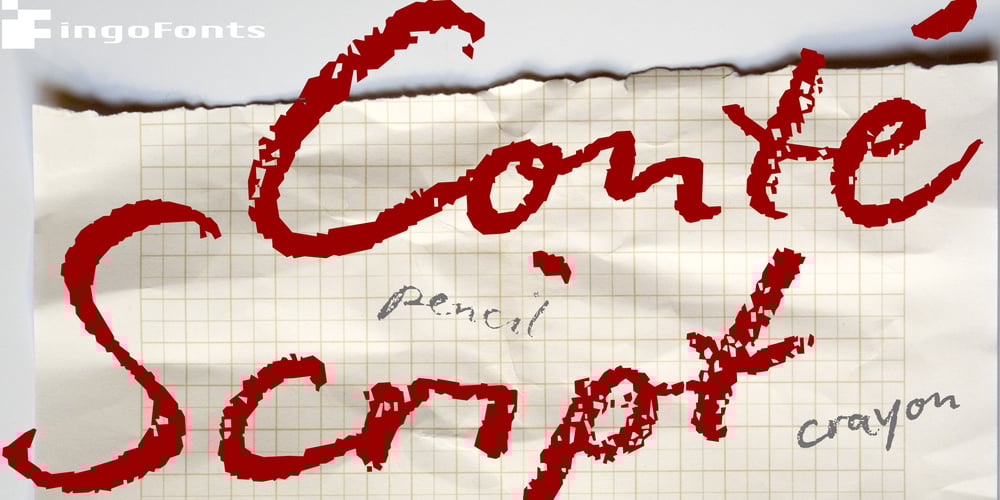
Conte Script Plus Font Family was designed by Ingo Zimmermann and published by Ingo. Conte Script Plus contains 3 styles and family package options. A personal handwriting done in pencil.Conté Script is a computer font but has the extraordinary look of handwriting. The typeface is exceedingly lively, diversified and distinct thanks to more than 300 different ligatures, i.e. letter combinations. In addition to the letter combinations in Conté Script, there are also double letters and figures included (aa, ff, AA, MM, 22, 66…) as ligatures with stylistic alternates.Type set in Conté Script appears remarkably similar to a text actually handwritten with a pencil.The typical style of the pencil — crumbliness where pressure lessens and the deep darkness where the pressure of the graphite in it’s fullest denseness smudges — is another earmark of Conté Script. The font appears to be written quickly, fleetingly, casually, as if not really to be taken seriously, and as if it would be written one minute and erased the next. Conté Script looks most ”authentic“ around the point size of 18 to 22.